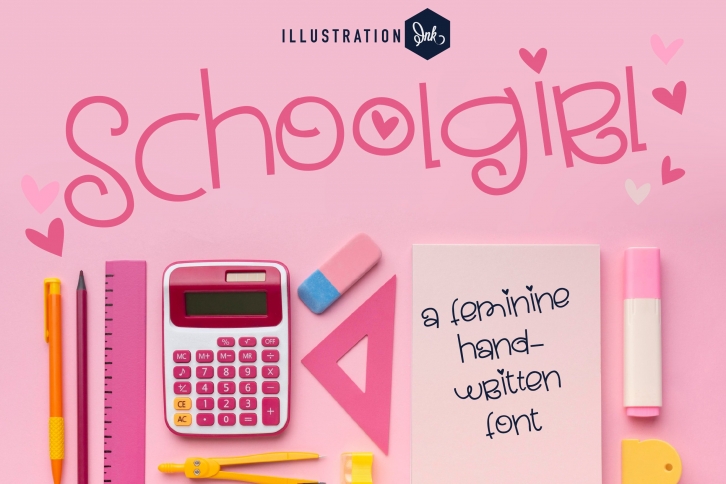
PN Schoolgirl is a gorgeous font that was realeased on August 15, 2022. The font can be used in many style contexts and design environments. Perfect for invitations, magazines, websites, logos, and more! It was designed by Illustration Ink and the file size is 1.23 MB. Thanks for checking out this font!